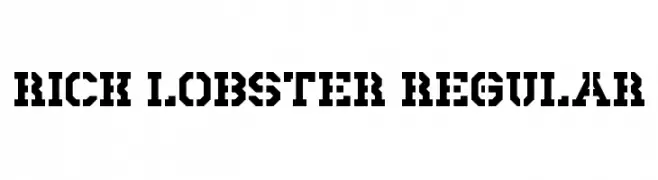
A bold, geometric font with a modern retro vibe and decorative elements.
A bold, angular font with sharp edges and a gothic flair.
A playful, rounded font with a hand-drawn, whimsical style.
A playful, decorative font with patterned characters ideal for creative projects.
A decorative and ornate font with bold, framed characters ideal for vintage-style projects.
A festive, decorative font with Easter-themed elements and bold styling.
A bold stencil font with geometric shapes and high contrast, perfect for impactful designs.
A decorative and abstract font inspired by ancient tribal art, featuring bold and whimsical characters.
A bold stencil font with geometric, block-like characters enclosed in squares.
Whimsical Easter-themed dingbat font with cartoon illustrations.
A bold, modern font with rounded edges and moderate contrast, suitable for impactful text.
A bold, playful font with a hand-drawn, whimsical style.
A whimsical and decorative font with abstract, mythical shapes and intricate details.
A decorative font with abstract and illustrative characters, perfect for creative projects.
A bold, modern font with thick, uniform strokes for impactful design.
A bold, shadowed font with a modern, geometric style.
A bold, modern font with a strong, impactful presence.
A collection of abstract, Easter Island-inspired symbols with a bold, artistic style.
A bold, 3D font with a retro, impactful style.
A playful, dotted font with interconnected circular shapes creating a whimsical appearance.
A bold, Western-style font with thick, blocky characters and prominent serifs.